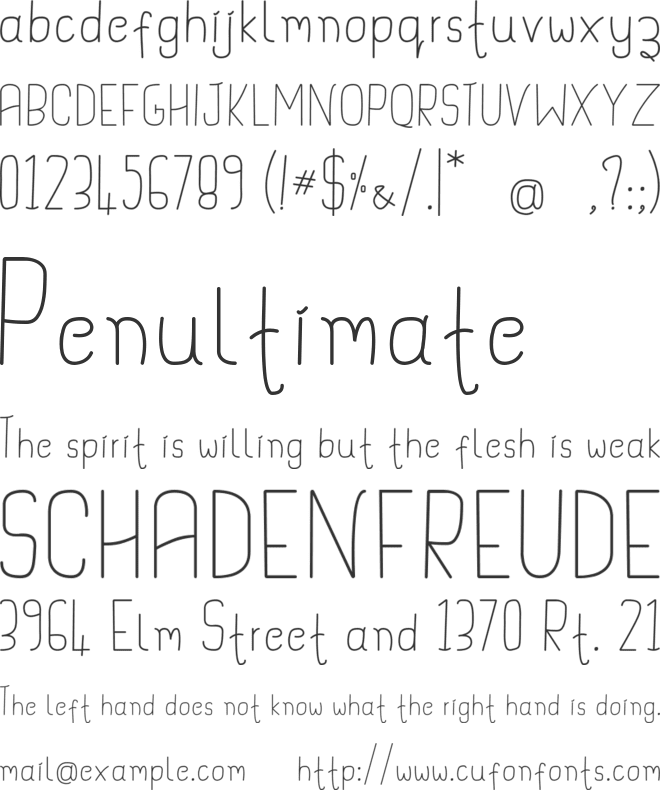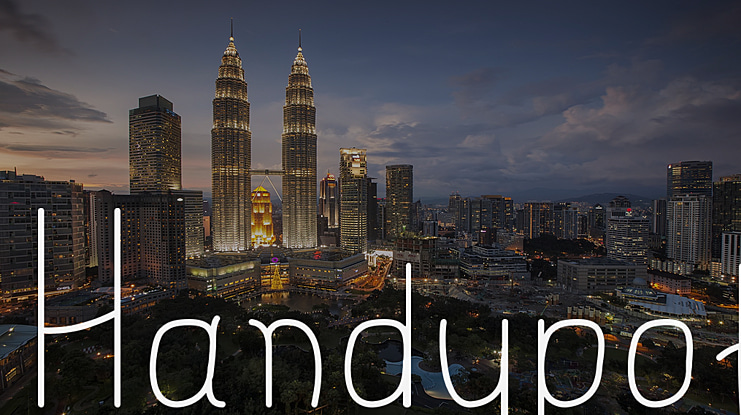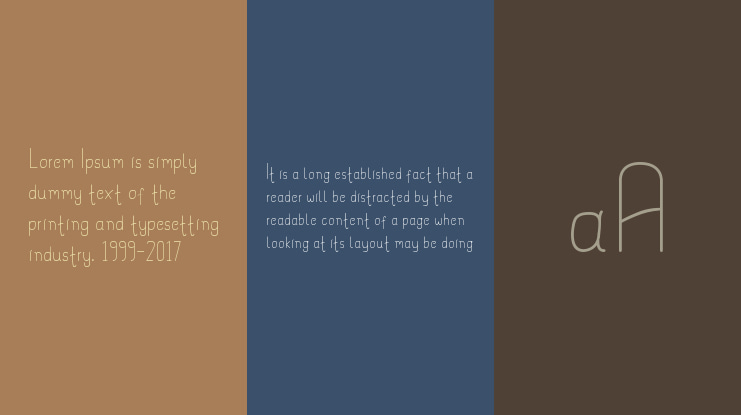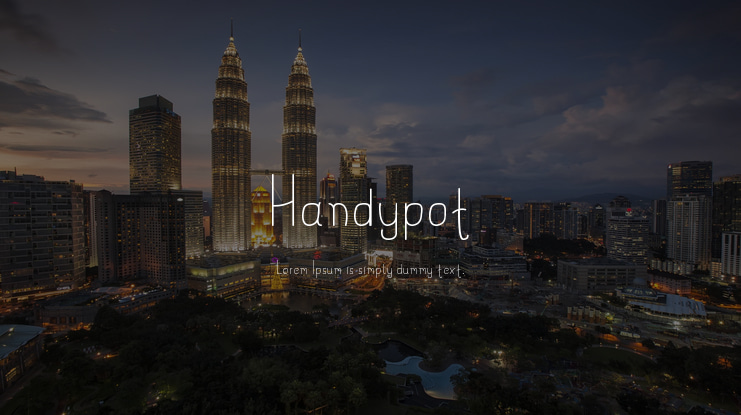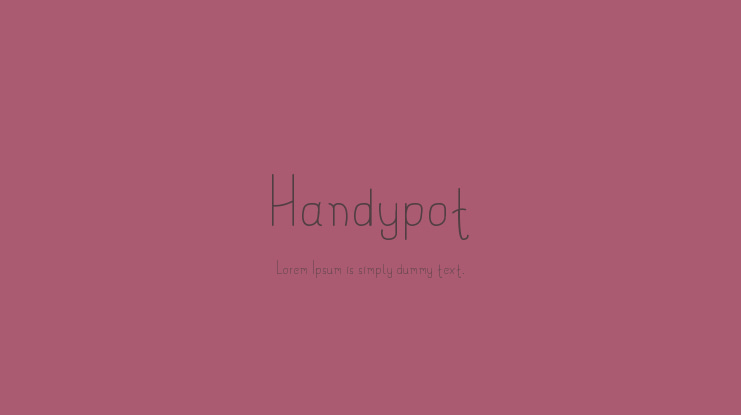
Handypot Font
Handypot is Playfull, simple and regular type monoline font - it will be good use for kids games, apps, casual writings, books and invitations and more.